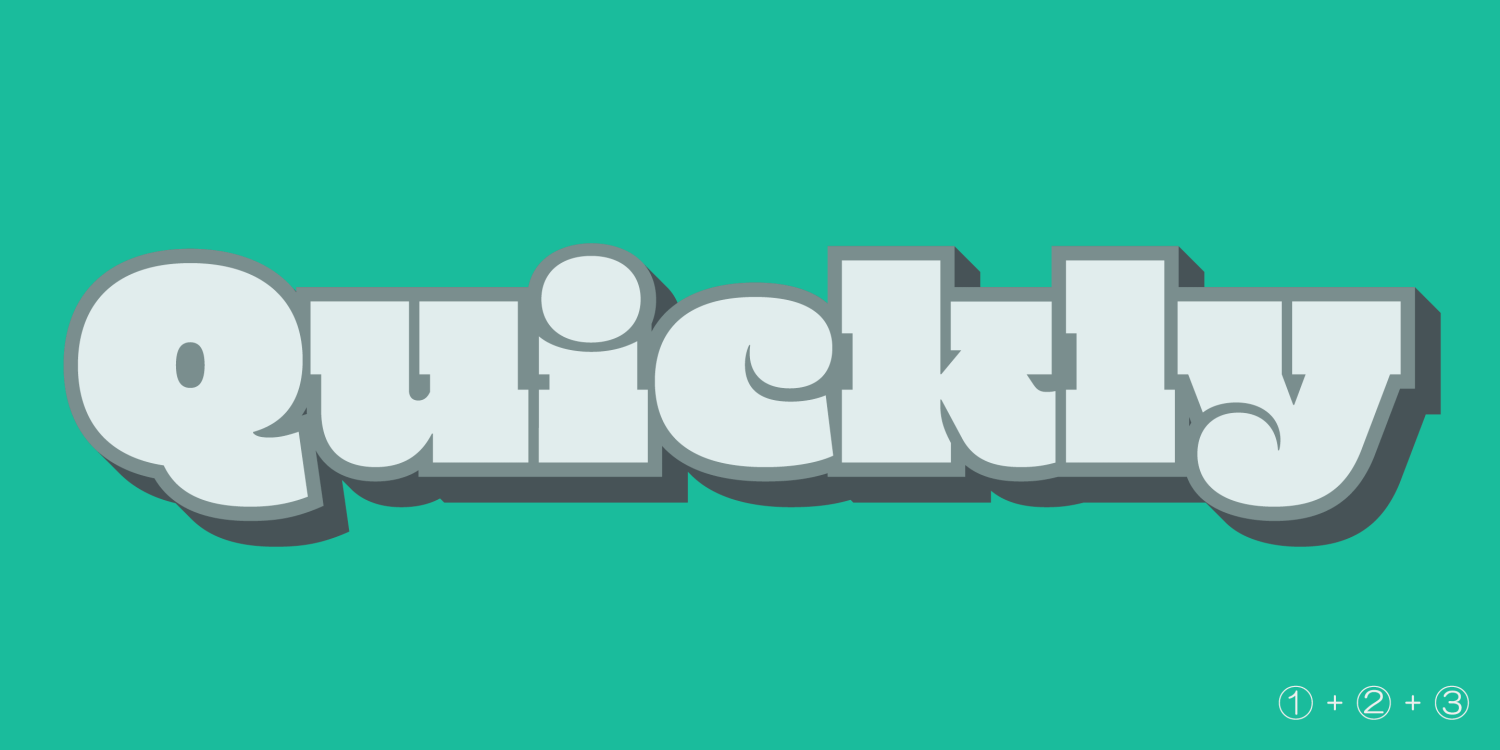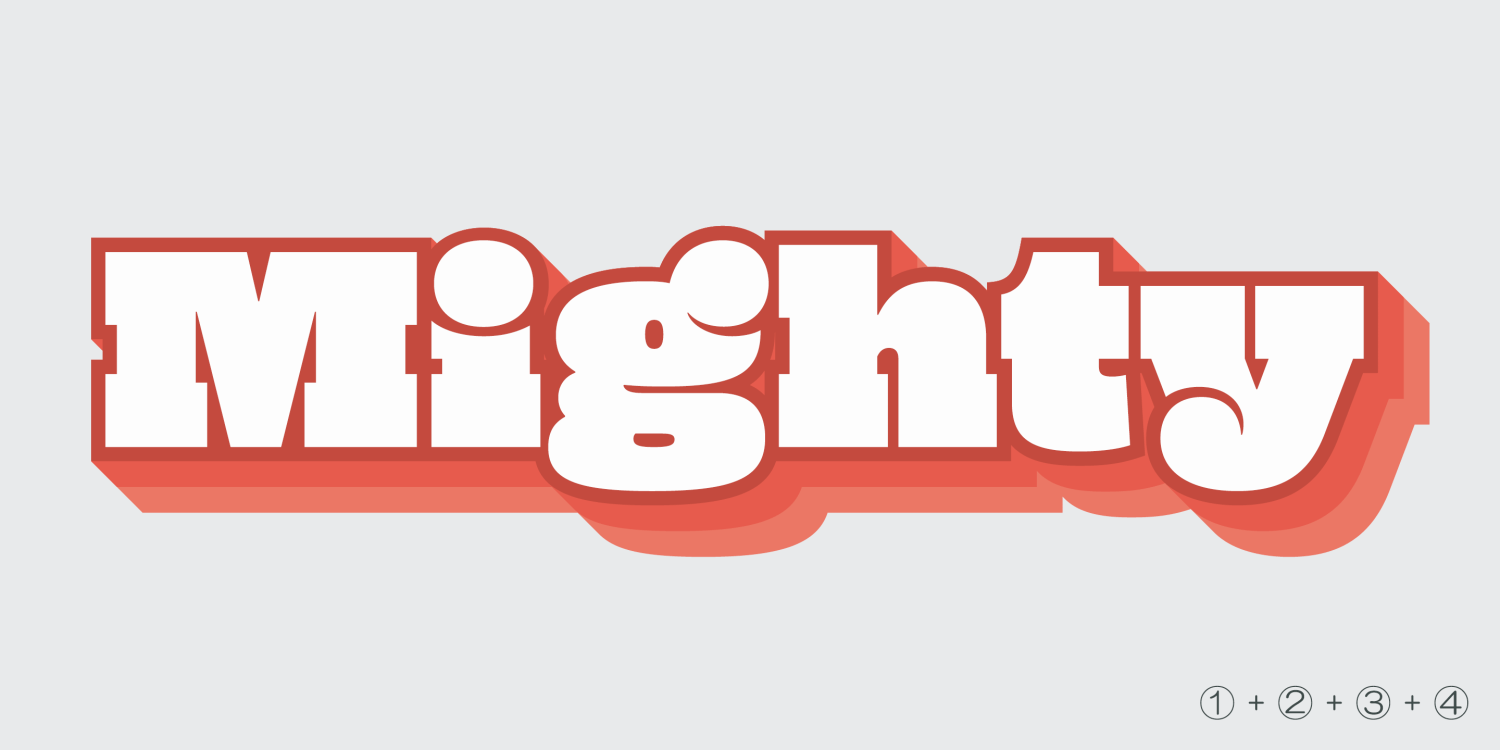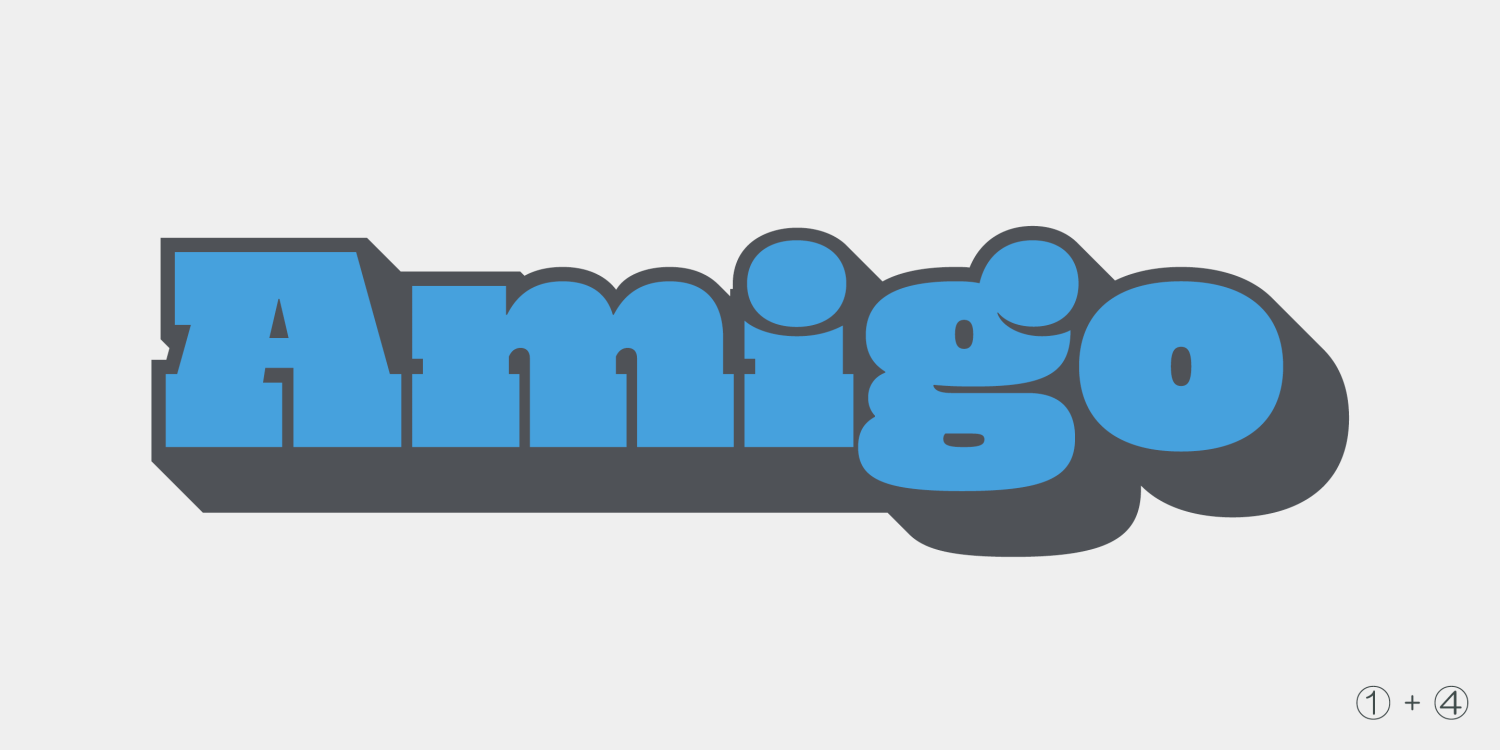
Mighty Slab Font
Mighty Slab Font - Opentype format (.otf) with 531 glyphs!. Mighty slab is a very heavy slab=serif font for titling, captions and logo. A slab serif typeface with 4 styles, available from adobe fonts for. Explore mighty slab designed by ryoichi tsunekawa at adobe fonts. Mighty slab font download is available free from 8font.com. Mighty slab font is a serif, slab type font that can be used on any.
Mighty slab font is a serif, slab type font that can be used on any. A slab serif typeface with 4 styles, available from adobe fonts for. Opentype format (.otf) with 531 glyphs!. Mighty slab font download is available free from 8font.com. Mighty slab is a very heavy slab=serif font for titling, captions and logo. Explore mighty slab designed by ryoichi tsunekawa at adobe fonts.
Mighty slab font download is available free from 8font.com. Explore mighty slab designed by ryoichi tsunekawa at adobe fonts. Opentype format (.otf) with 531 glyphs!. Mighty slab is a very heavy slab=serif font for titling, captions and logo. Mighty slab font is a serif, slab type font that can be used on any. A slab serif typeface with 4 styles, available from adobe fonts for.
Mighty slab is a very heavy slab=serif font for titling, captions and logo. Mighty slab font is a serif, slab type font that can be used on any. A slab serif typeface with 4 styles, available from adobe fonts for. Opentype format (.otf) with 531 glyphs!. Mighty slab font download is available free from 8font.com.
Mighty slab font download is available free from 8font.com. Explore mighty slab designed by ryoichi tsunekawa at adobe fonts. A slab serif typeface with 4 styles, available from adobe fonts for. Opentype format (.otf) with 531 glyphs!. Mighty slab font is a serif, slab type font that can be used on any.
Mighty slab font download is available free from 8font.com. Explore mighty slab designed by ryoichi tsunekawa at adobe fonts. A slab serif typeface with 4 styles, available from adobe fonts for. Mighty slab is a very heavy slab=serif font for titling, captions and logo. Mighty slab font is a serif, slab type font that can be used on any.
Explore mighty slab designed by ryoichi tsunekawa at adobe fonts. Opentype format (.otf) with 531 glyphs!. Mighty slab is a very heavy slab=serif font for titling, captions and logo. A slab serif typeface with 4 styles, available from adobe fonts for. Mighty slab font is a serif, slab type font that can be used on any.
Explore mighty slab designed by ryoichi tsunekawa at adobe fonts. Mighty slab font is a serif, slab type font that can be used on any. Opentype format (.otf) with 531 glyphs!. A slab serif typeface with 4 styles, available from adobe fonts for. Mighty slab is a very heavy slab=serif font for titling, captions and logo.
A slab serif typeface with 4 styles, available from adobe fonts for. Opentype format (.otf) with 531 glyphs!. Mighty slab font download is available free from 8font.com. Mighty slab font is a serif, slab type font that can be used on any. Mighty slab is a very heavy slab=serif font for titling, captions and logo.
Mighty slab is a very heavy slab=serif font for titling, captions and logo. Mighty slab font download is available free from 8font.com. Mighty slab font is a serif, slab type font that can be used on any. A slab serif typeface with 4 styles, available from adobe fonts for. Explore mighty slab designed by ryoichi tsunekawa at adobe fonts.
Mighty slab font is a serif, slab type font that can be used on any. Explore mighty slab designed by ryoichi tsunekawa at adobe fonts. Mighty slab font download is available free from 8font.com. Mighty slab is a very heavy slab=serif font for titling, captions and logo. Opentype format (.otf) with 531 glyphs!.
Mighty slab font download is available free from 8font.com. Explore mighty slab designed by ryoichi tsunekawa at adobe fonts. Mighty slab font is a serif, slab type font that can be used on any. A slab serif typeface with 4 styles, available from adobe fonts for. Mighty slab is a very heavy slab=serif font for titling, captions and logo.
Mighty slab is a very heavy slab=serif font for titling, captions and logo. Explore mighty slab designed by ryoichi tsunekawa at adobe fonts. A slab serif typeface with 4 styles, available from adobe fonts for. Mighty slab font download is available free from 8font.com. Mighty slab font is a serif, slab type font that can be used on any.
Mighty Slab Font Is A Serif, Slab Type Font That Can Be Used On Any.
Mighty slab is a very heavy slab=serif font for titling, captions and logo. Explore mighty slab designed by ryoichi tsunekawa at adobe fonts. Opentype format (.otf) with 531 glyphs!. A slab serif typeface with 4 styles, available from adobe fonts for.